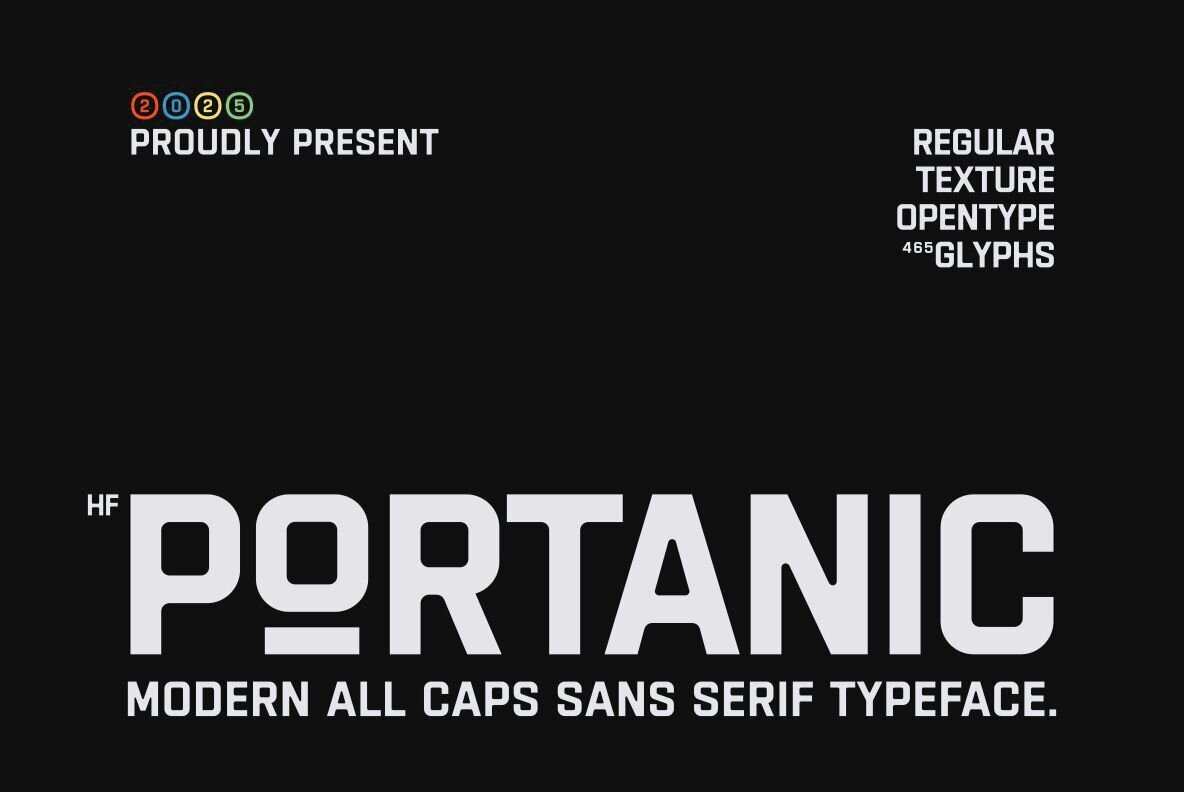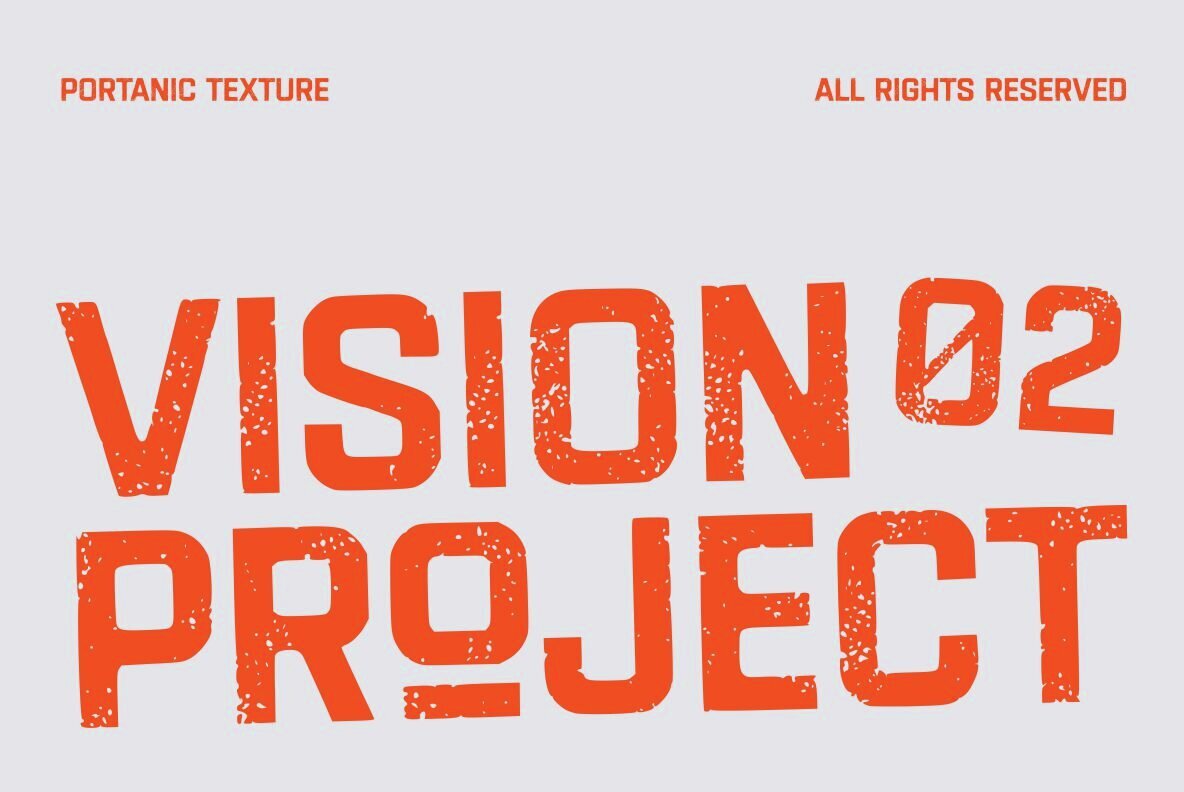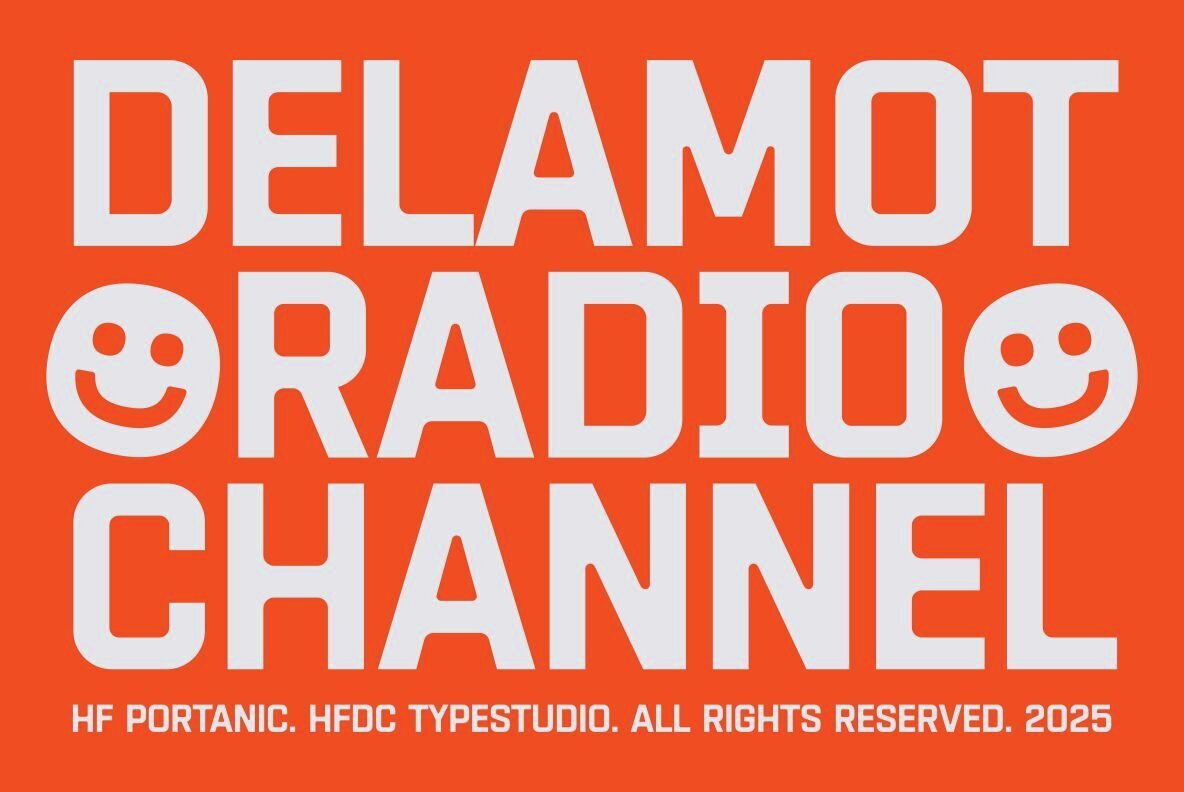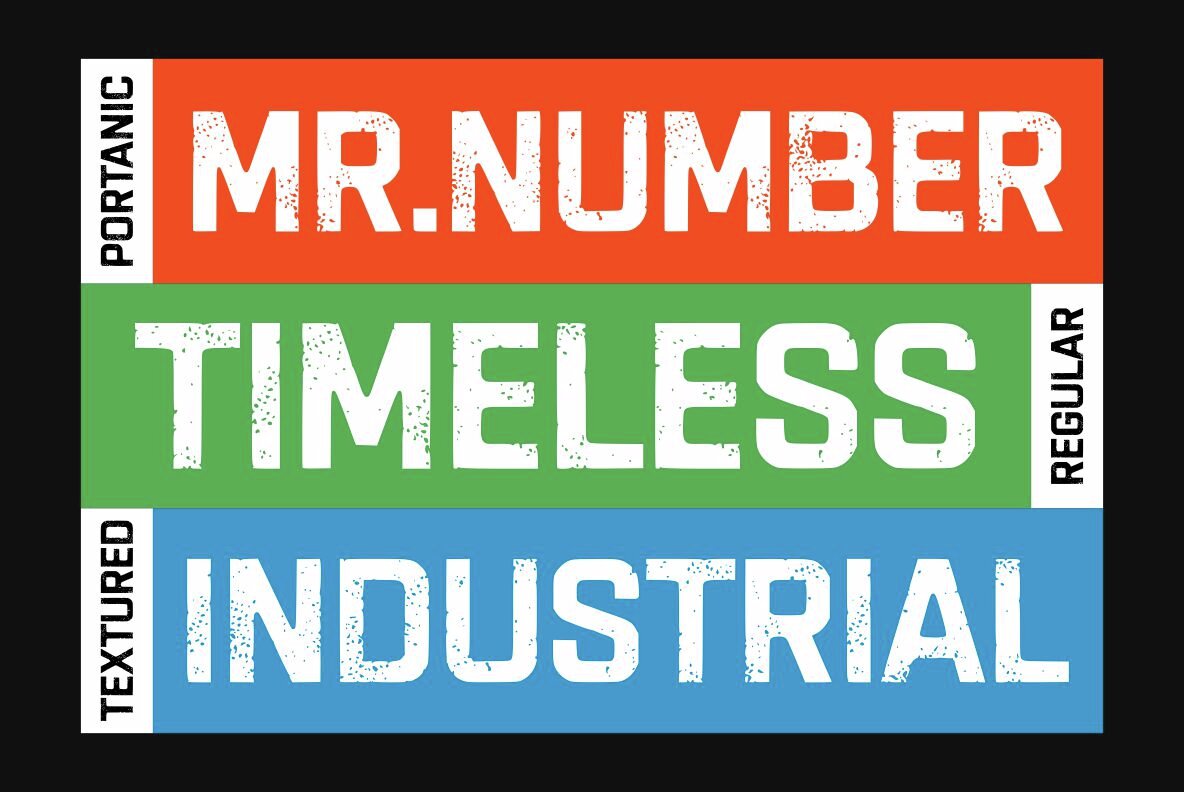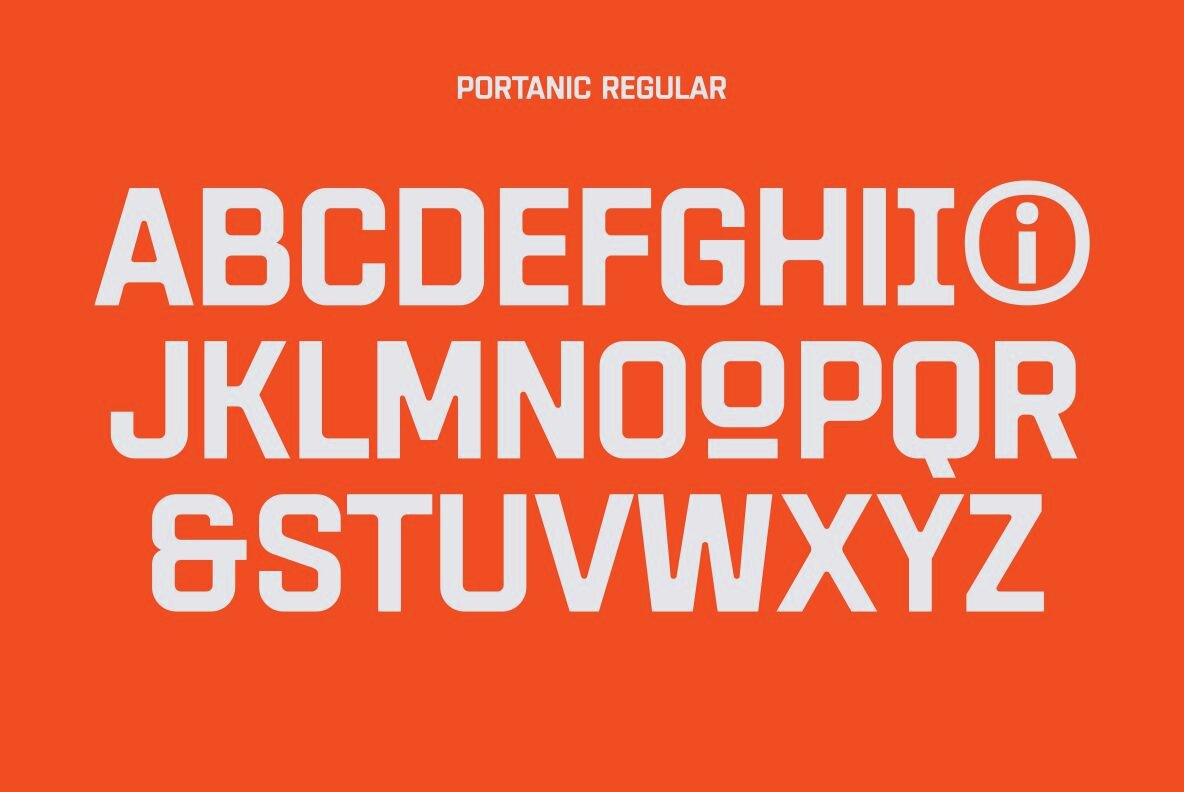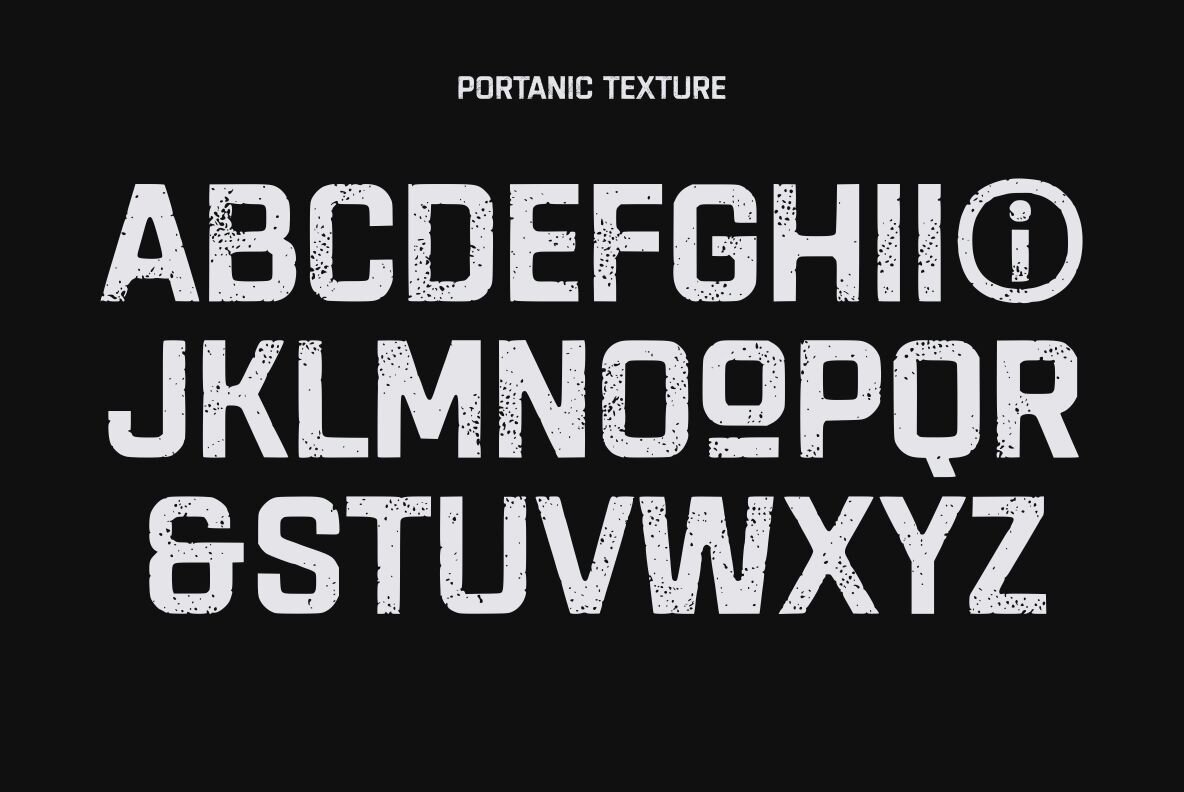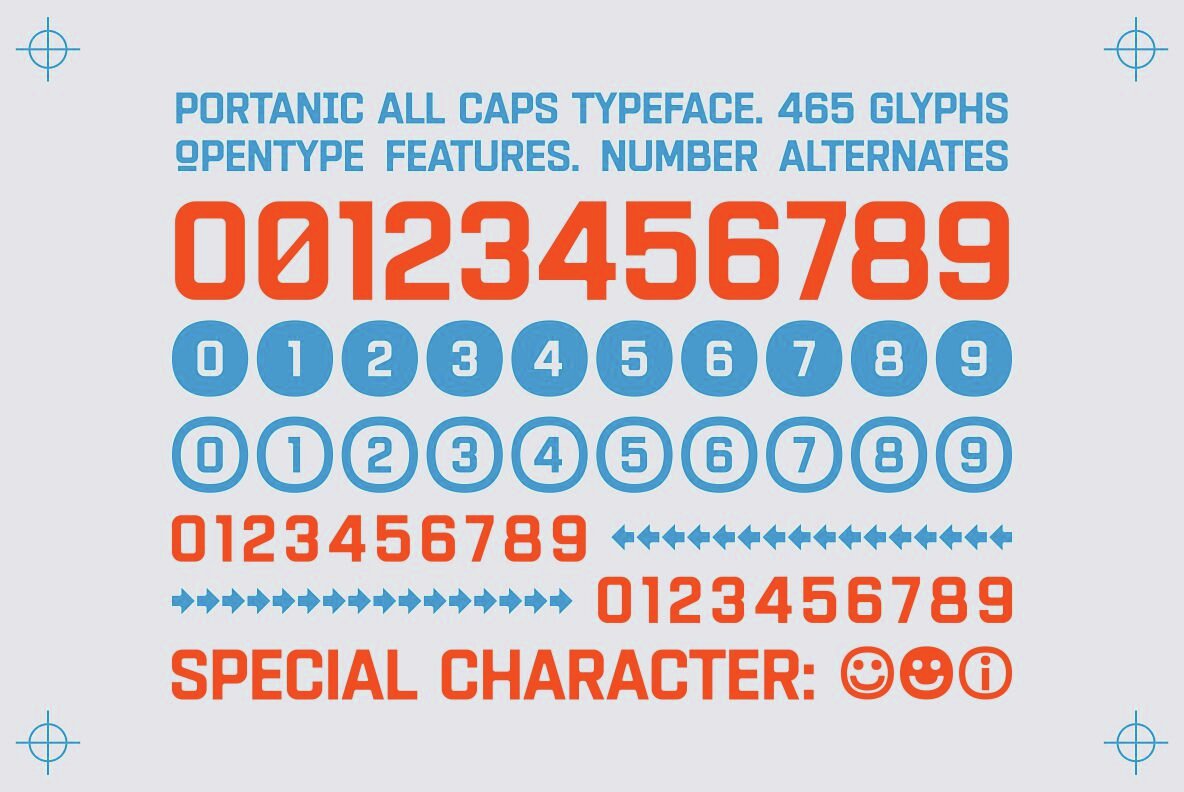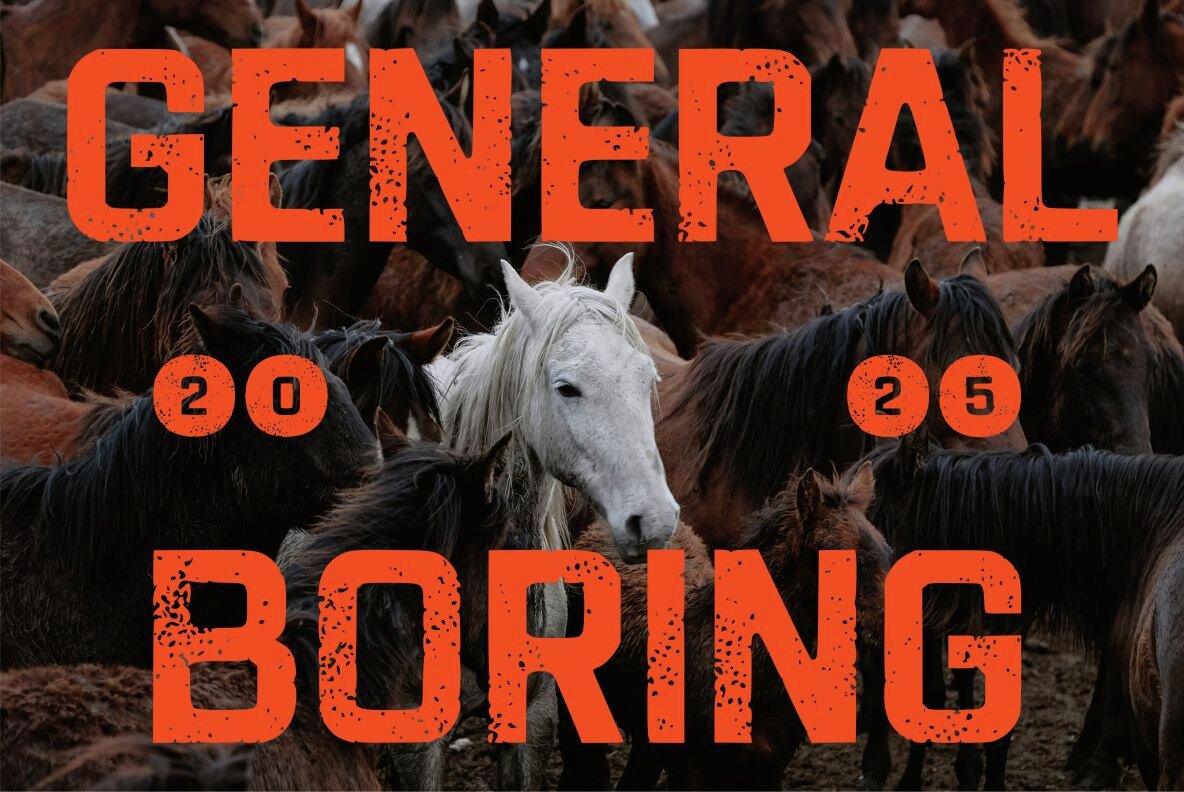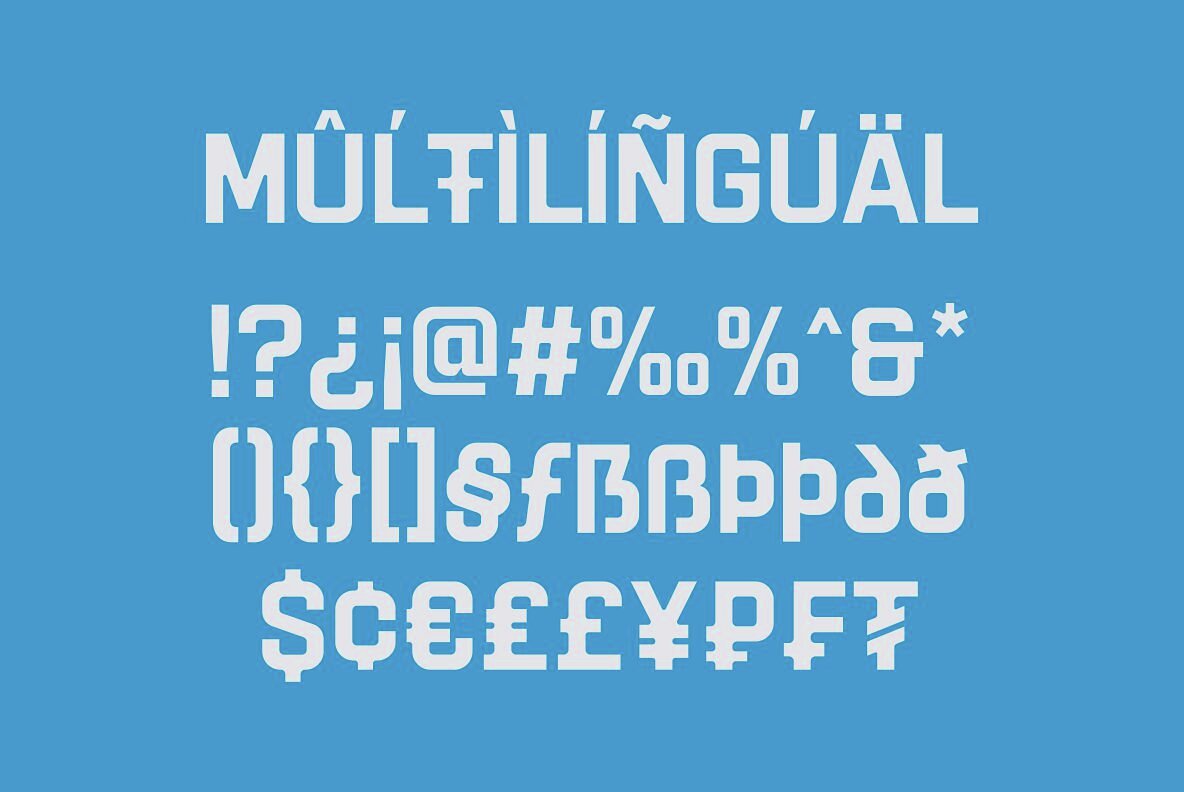
HF Portanic Font
HF Portanic Regular
HF Portanic Texture
HF Portanic is an all caps sans serif typeface that stands out with its unique combination of block style and gentle curves. This font captures a balance between authority and approachability. Inspired by prominent signage above shop fronts, it employs uppercase letters to ensure brand visibility and clarity. HF Portanic is the perfect choice for designs that require distinction and readability.HF Portanic: Soft Yet Firm Block Sans Serif